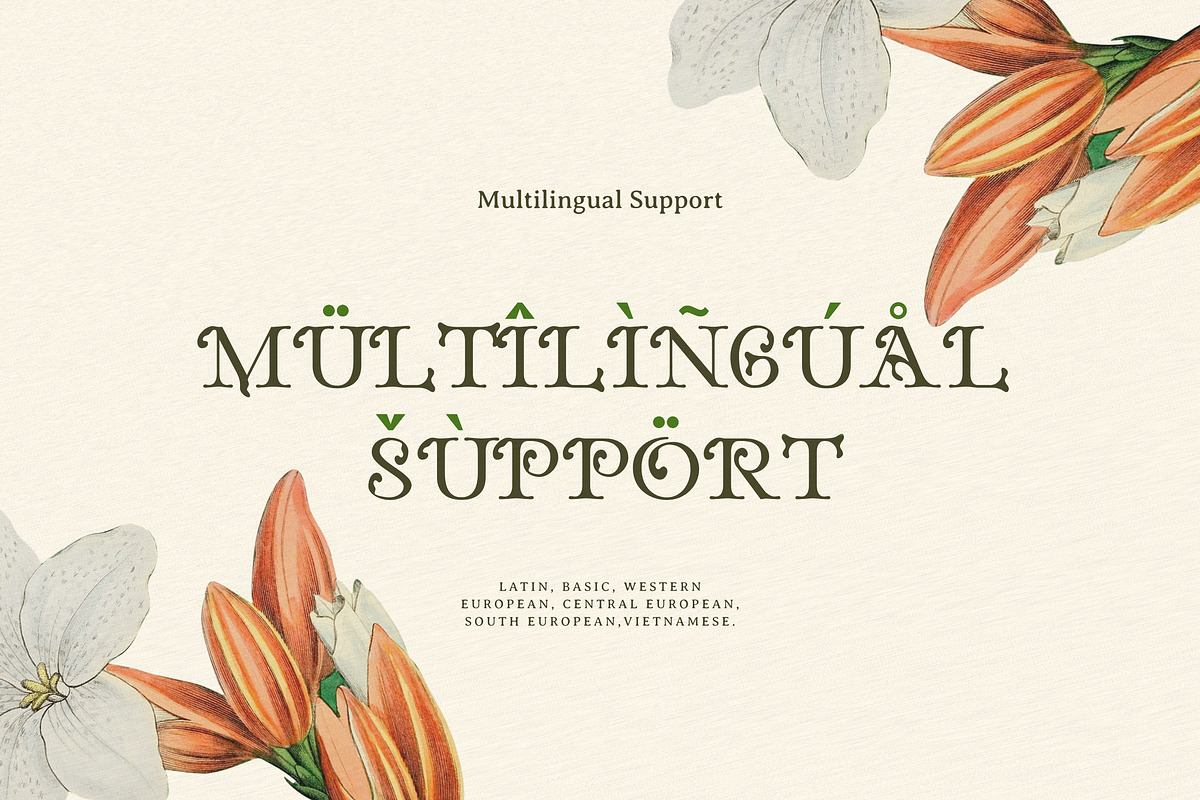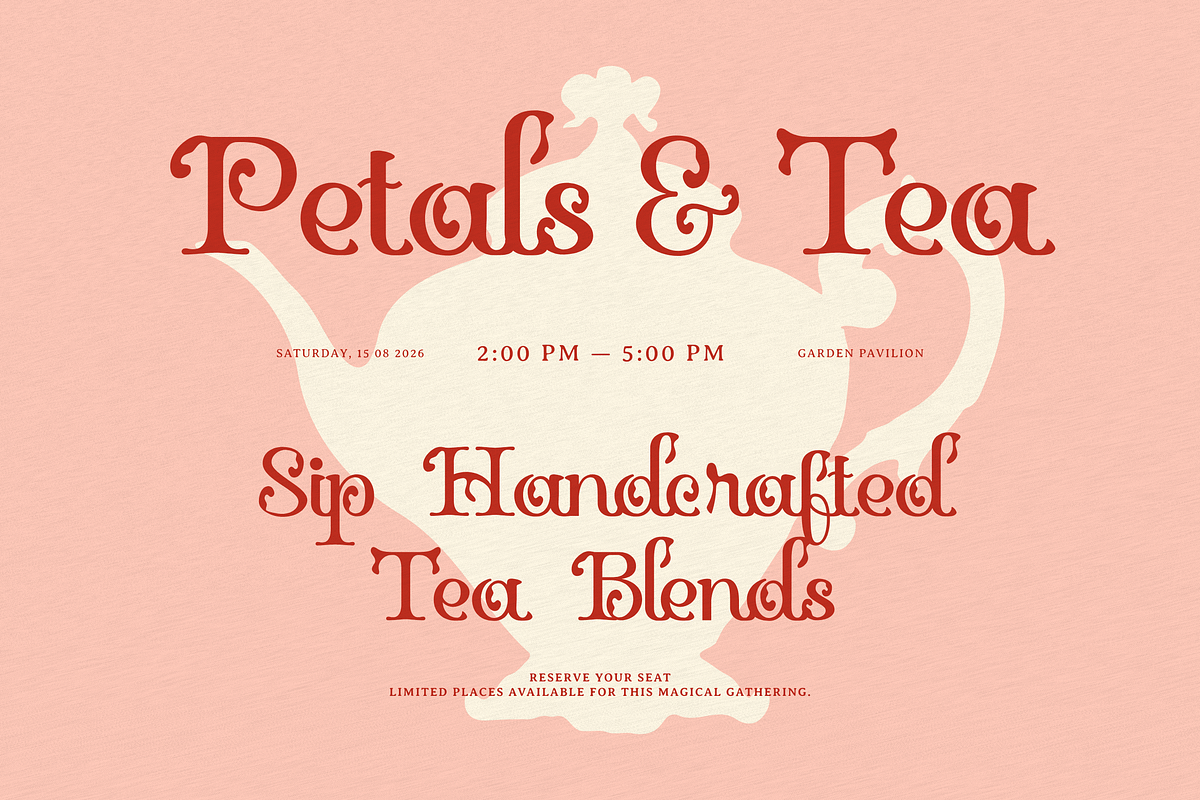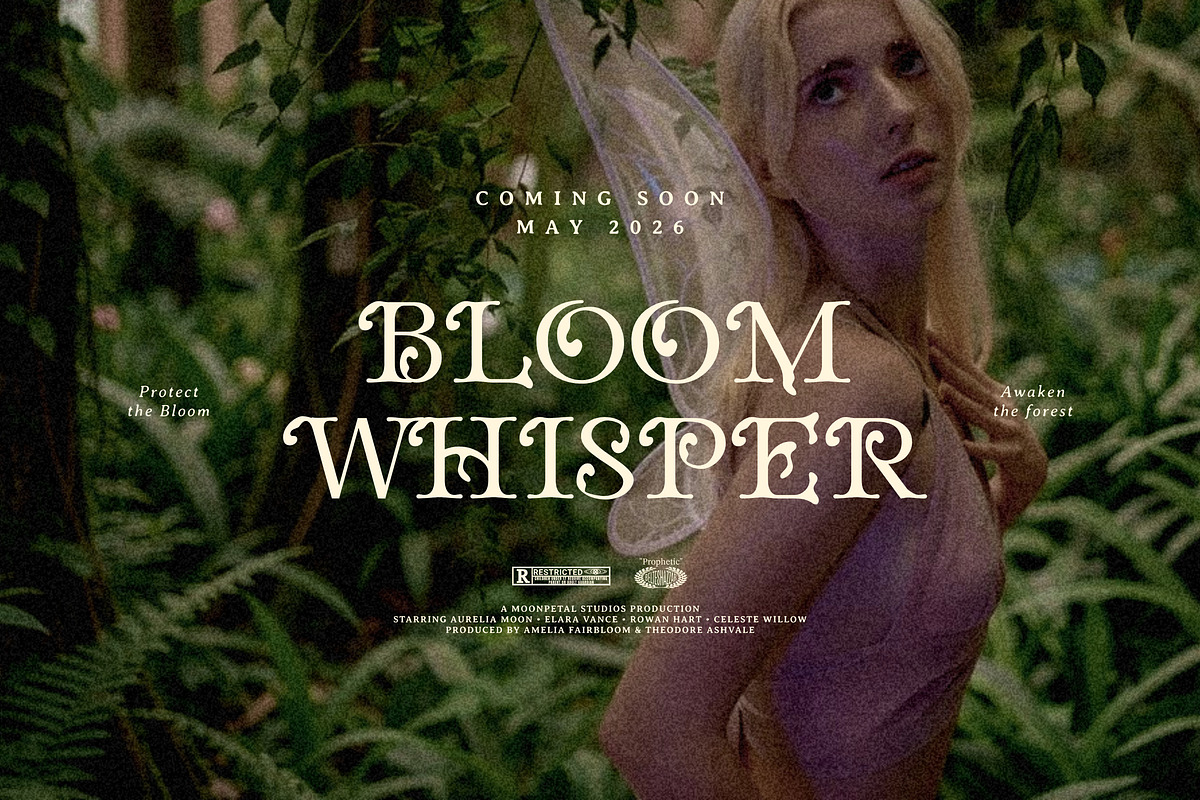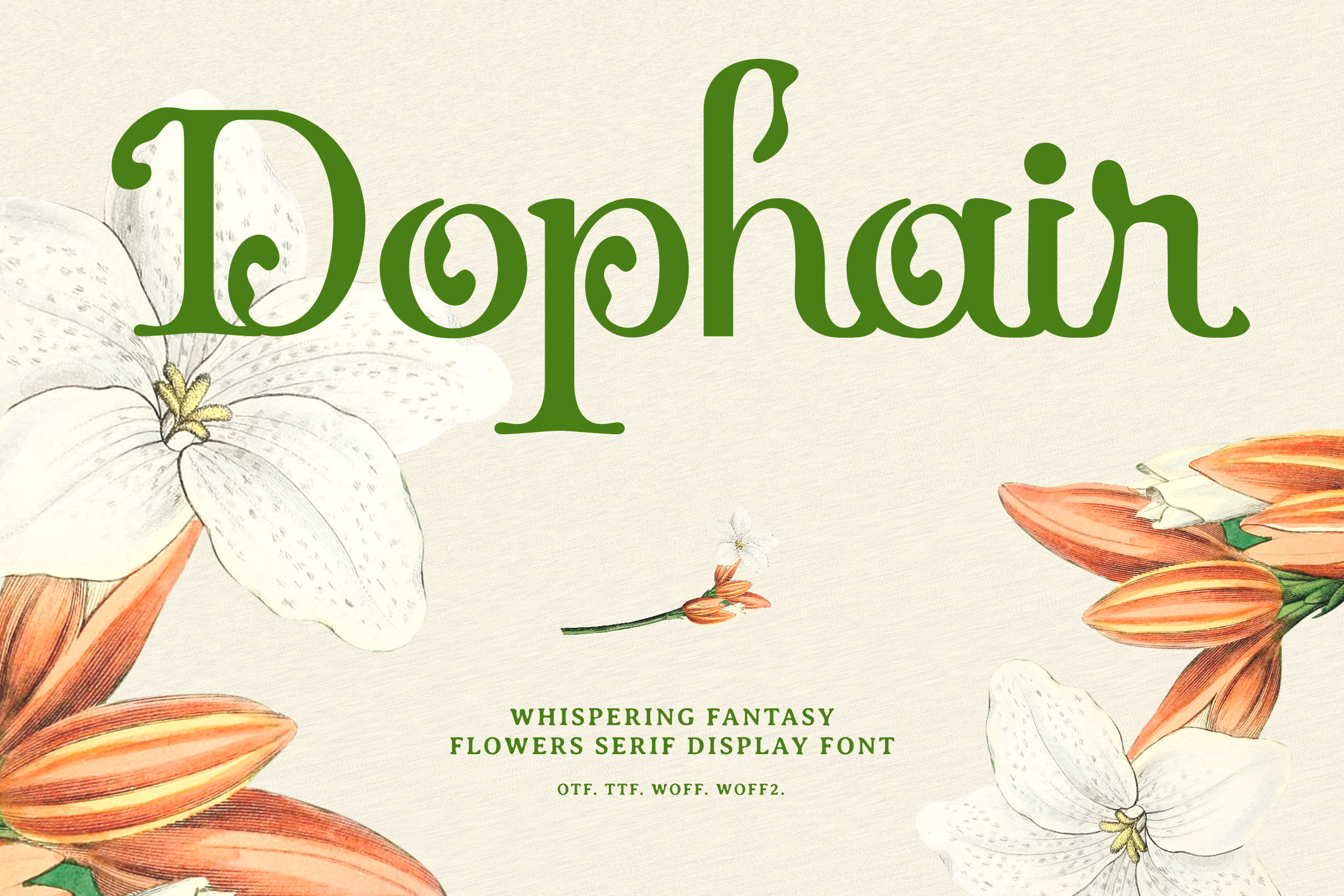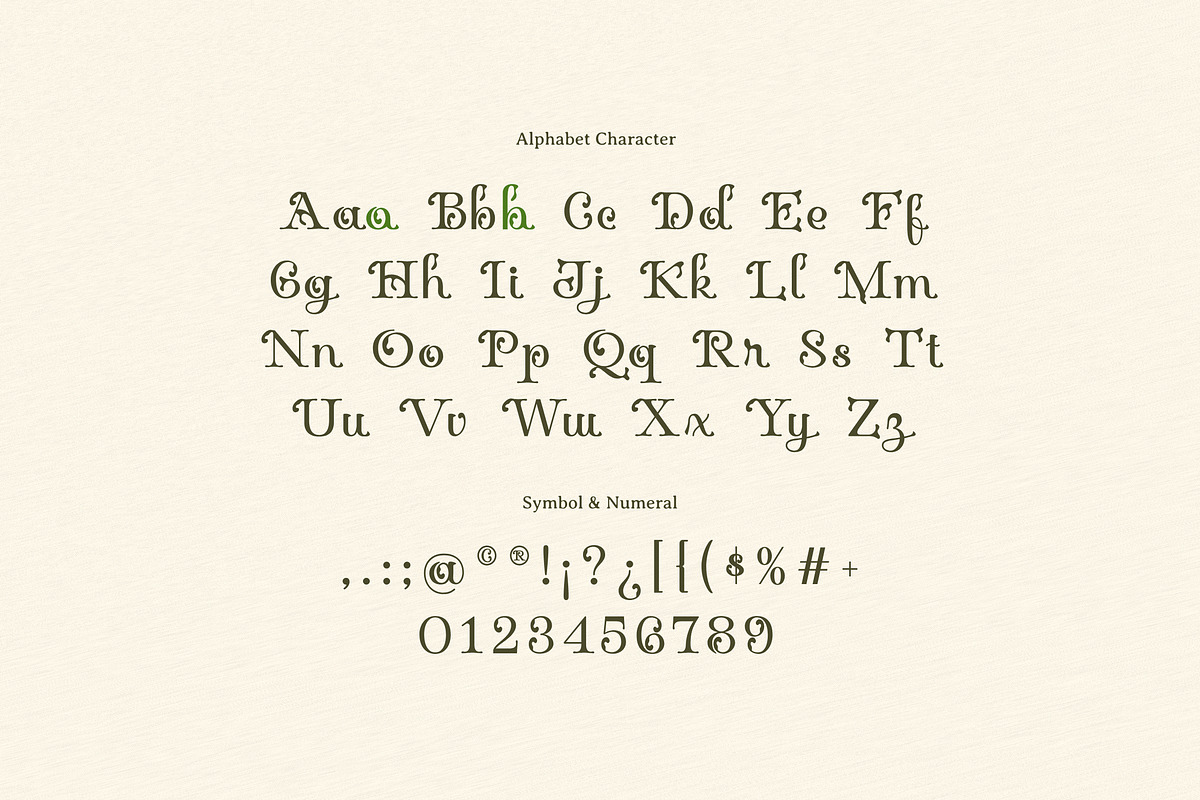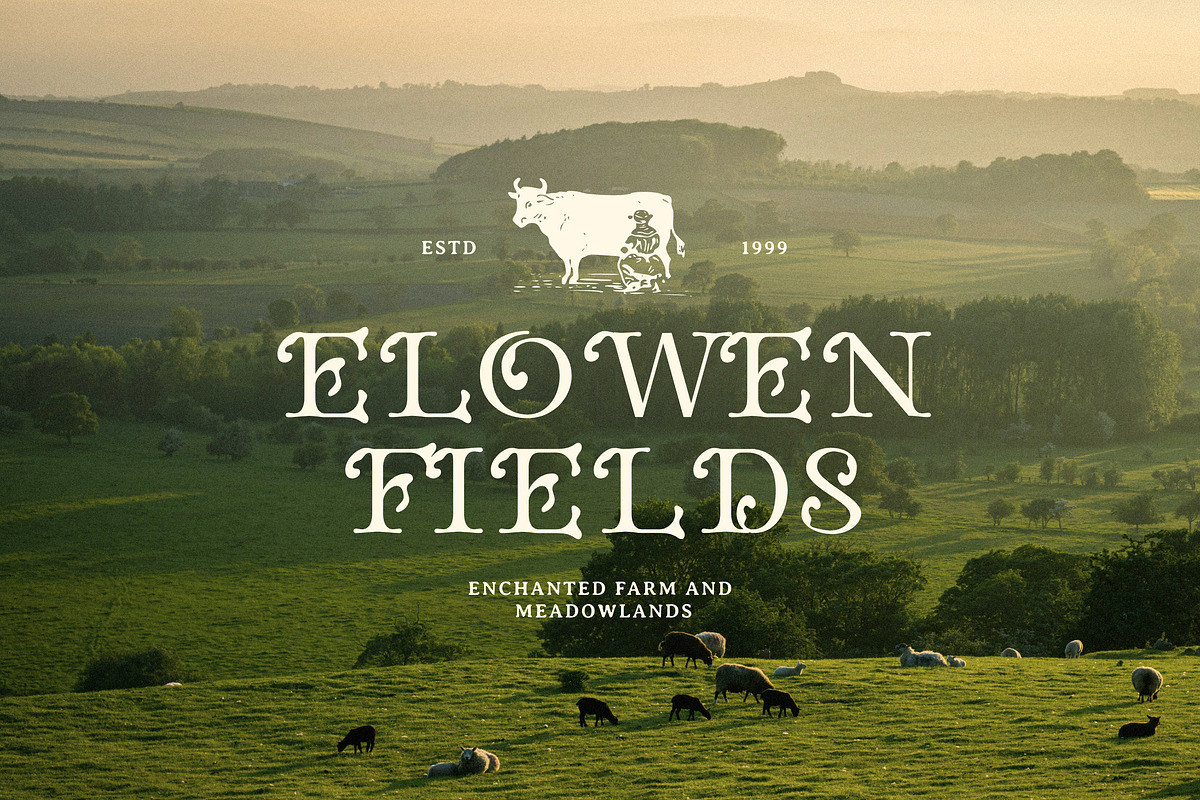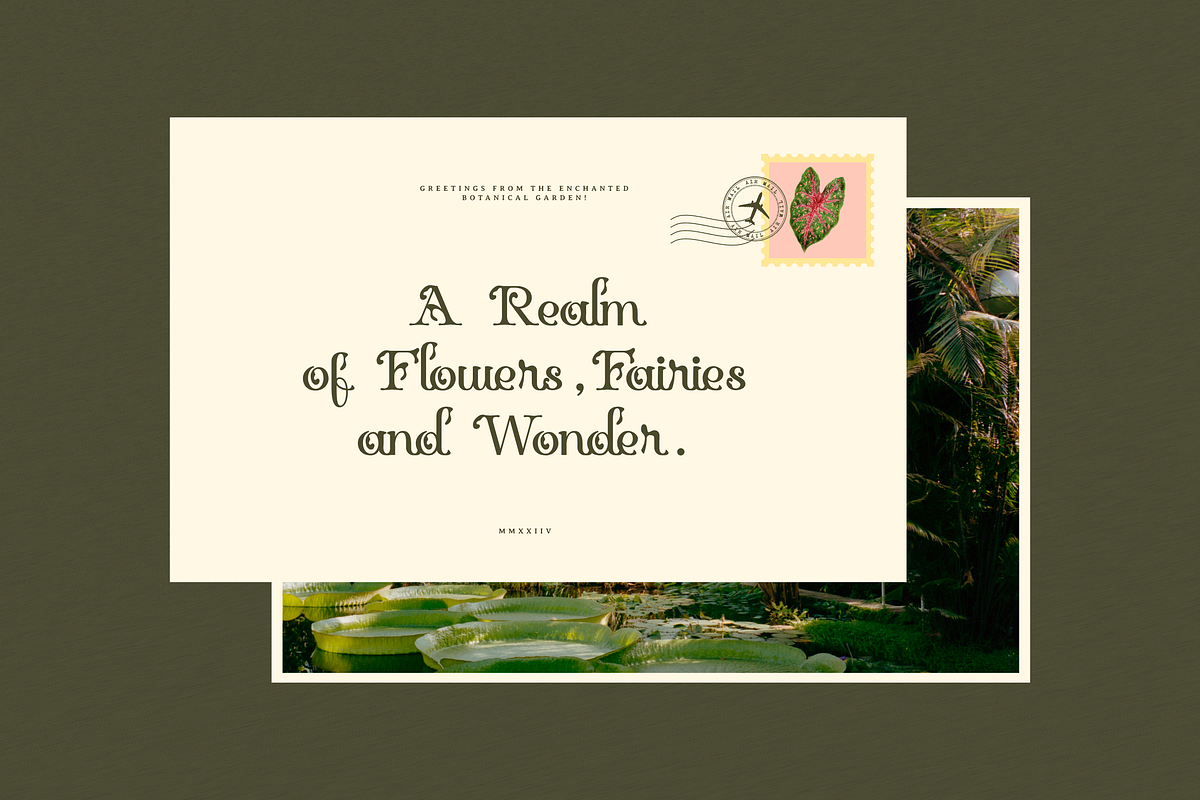
Dophair Fantasy Serif Display Font
Step into a world of magic, folklore, and natural elegance with Dophair, a whispering fantasy serif display font designed to breathe life into your creative storytelling. Heavily inspired by the organic fluid curves of winding vines, blooming petals, and enchanted forests, Dophair blends classic serif sophistication with whimsical fantasy, fairycore inspired aesthetics.
Every character is meticulously crafted with playful loops, ornate swashes, and tendril like extensions that mimic the natural asymmetry of botanical life. Whether you are creating a mystical products, fantasy movie posters, fairy tale book covers, mystical event invitations, editorial headings, packaging, romantic, cottagecore themed design layouts, branding for organic products. Dophair adds an instant layer of wonder and vintage charm.
While intricately decorative as a display font for large headlines, it retains excellent legibility for sub headlines, editorial layouts, and short blocks of prose.
Uppercase and Lowecase Characters.
Numerals and Punctuations.
Alternates and Ligatures.
Multilingual Support.